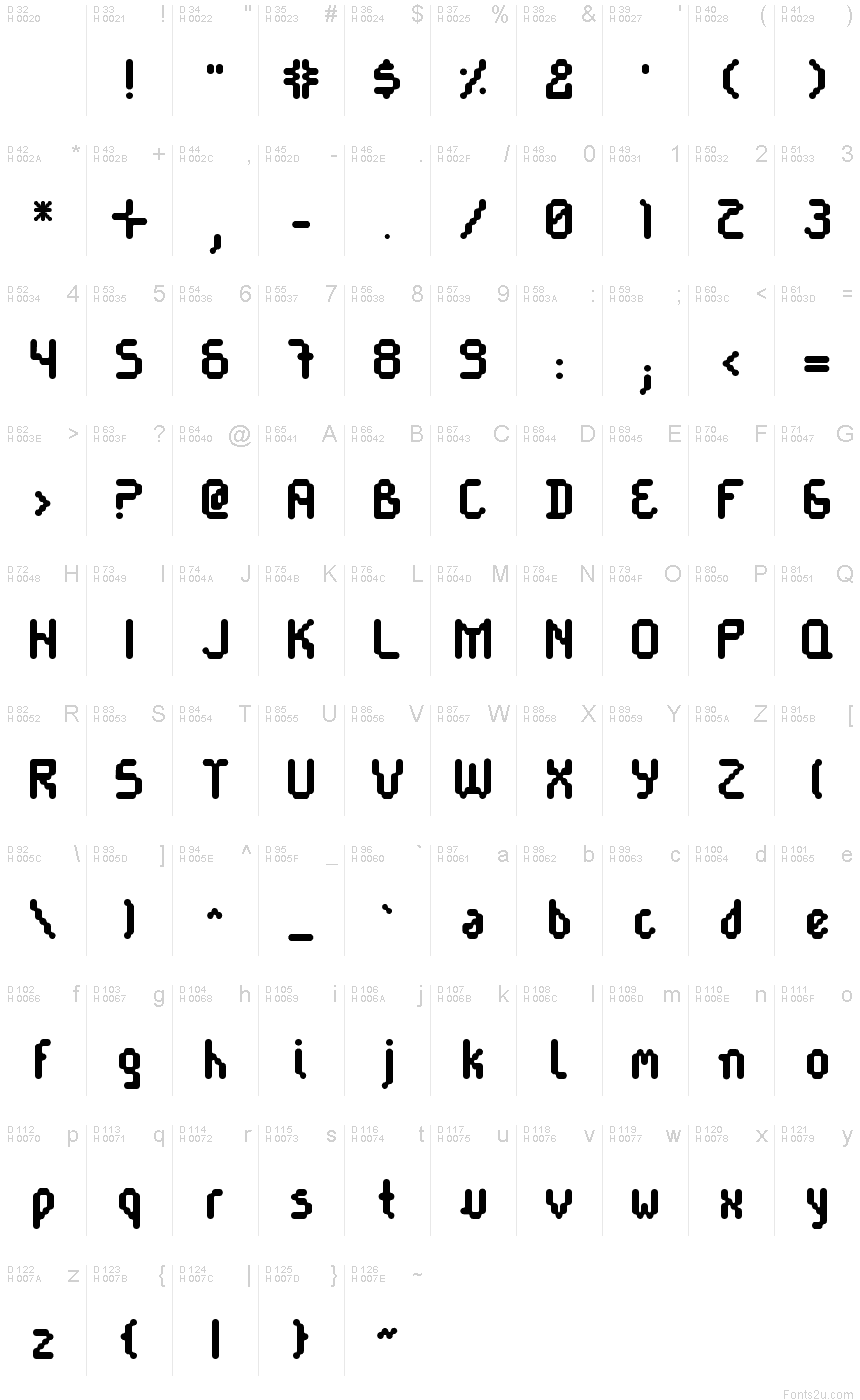
Cayetano Round Bold
Cayetano Round Bold font by Alejandro Paul & Apostrophe is a free digital display typeface in the Cayetano Round family, with chunky pixel blocks softened into pillowy corners. It looks like an 8‑bit arcade screen that’s been gently rounded off, so the letters feel both technical and friendly instead of harsh. The tight rhythm and consistent stroke weight give your words a solid, brick‑like presence that still reads cleanly at a glance.
Using Cayetano Round Bold, you can bring a playful tech edge to game titles, retro app logos, sci‑fi posters, streaming overlays, stickers, and bold website headers. This free font shines when you keep it big and generous, letting those rounded modules lock together like tiles on a grid. For body copy or UI labels, pair it with a simple geometric sans so Cayetano Round Bold can stay in the spotlight as your standout headline voice.